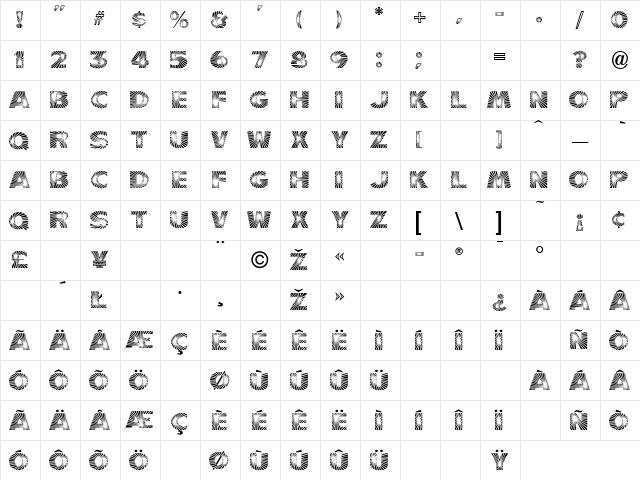
Burst Regular Free Font
Burst Regular
Foundry: Digitized by Dan X. Solo. Software by Dover Publications, Inc
Burst Family
Burst Regular
Design Context for Burst
Burst is a composed and adaptable typeface that performs quietly and consistently across a wide range of design contexts.
Who designed the Burst Regular font?
This font was published by Digitized by Dan X. Solo. Software by Dover Publications, Inc. Check the technical specs section for copyright and designer details.